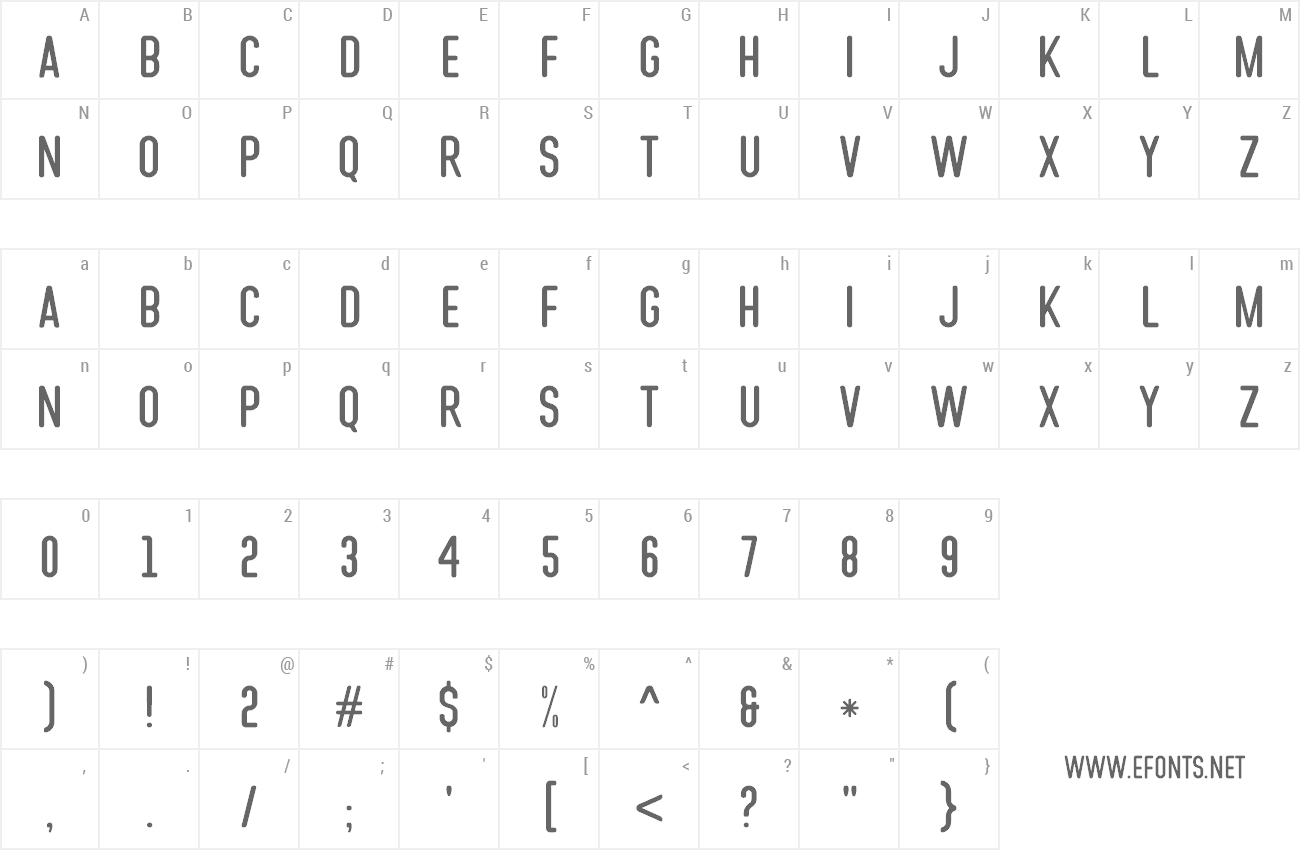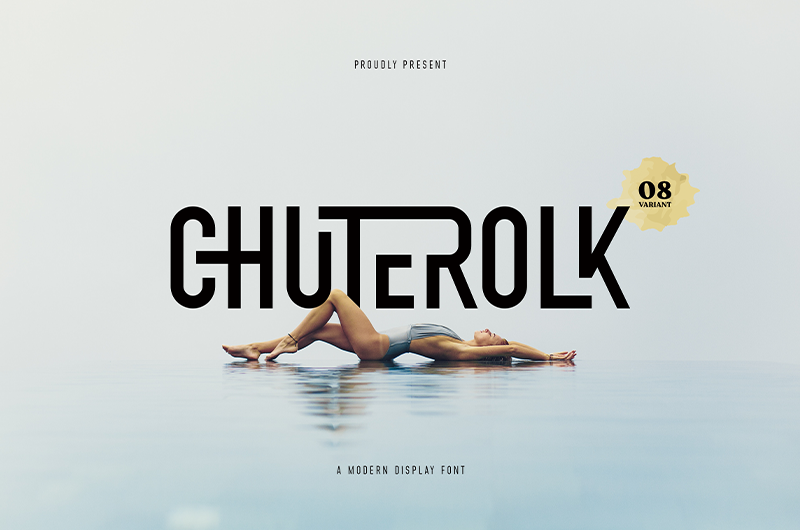
Preview and download CHUTEROLK Font. Created by Namara Creative Studio in Basic Sans serif styles with Free for personal use license.
CHUTEROLK is Modern sans serif font that is out of this world, a strong balance between strong pointed corners and smooth curves. Available in 08 style, included alternate, ligature and multilingual support. By installing or using this font, you are agree to the Product Usage Agreement: - This font is PERSONAL USE ONLY. NO COMMERCIAL USE ALLOWED! - For commercial license, please contact us at namaracreativestudio@gmail.com - Any donation are very appreciated. Paypal E-Mail for donation : namaracreativestudio@gmail.com |